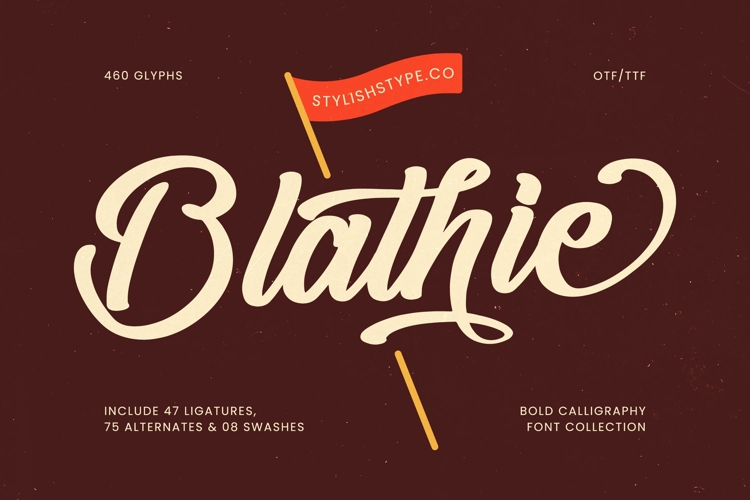
Blathie - Bold Calligraphy Font
Blathie - Bold Calligraphy Font, a striking script typeface that captures the spirit of mid-century sign painting and hand-lettered craftsmanship. Its robust, thick letterforms provide exceptional visibility, while the smooth, fluid connections ensure a truly dynamic textual flow. This font delivers high-impact headlines and branding assets designed to command attention and evoke a warm sense of nostalgia and classic American swagger.